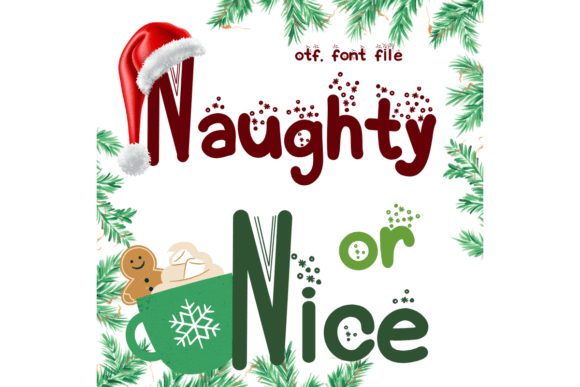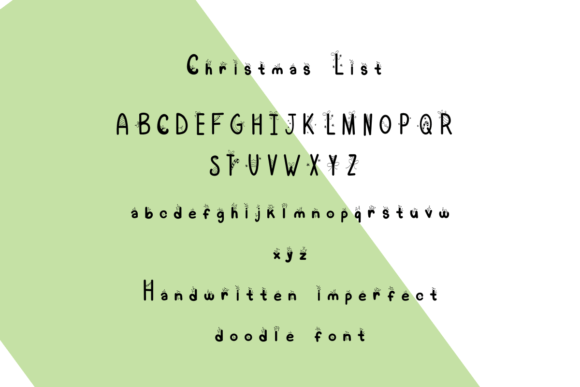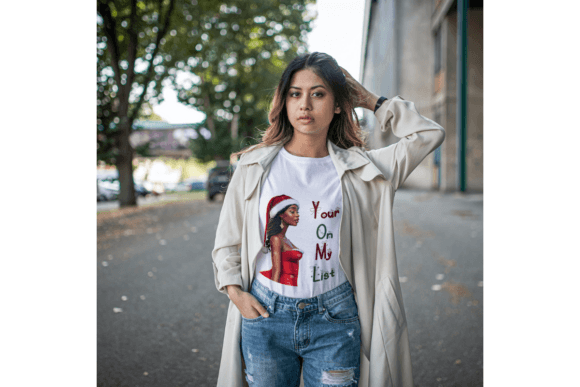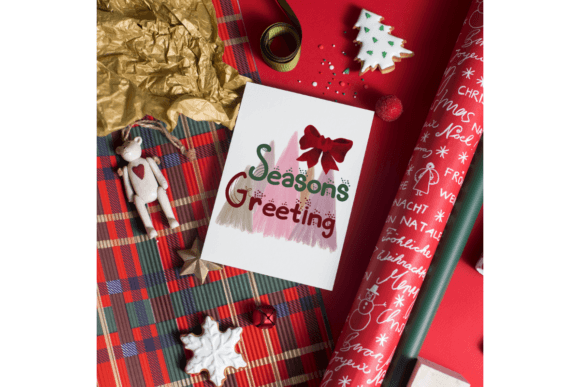
Christmas List Font: A Festive and Whimsical Typeface for Holiday Designs
Are you looking for a unique and festive font to add a touch of holiday cheer to your designs and projects? Look no further than the Christmas List Font, a charming and whimsical typeface adorned with tiny Christmas decorations wrapped around each letter. This delightful font is perfect for designers and crafters who want to create holiday-themed projects that stand out from the crowd.
What is Christmas List Font?
Christmas List Font is a digital typeface designed to evoke the magic and wonder of the holiday season. Each letter is carefully crafted with intricate Christmas decorations, such as holly leaves, candy canes, and snowflakes, that wrap around the characters to create a festive and playful look. The font is perfect for use in a variety of holiday-themed projects, from Christmas cards and invitations to festive posters and social media graphics.
Key Features of Christmas List Font
• Festive and Whimsical Design: The Christmas List Font features a unique and playful design that’s sure to add a touch of holiday cheer to your projects.
• Intricate Christmas Decorations: Each letter is adorned with charming tiny Christmas decorations, such as holly leaves, candy canes, and snowflakes.
• Perfect for Holiday-themed Projects: The font is ideal for use in Christmas cards, invitations, posters, social media graphics, and other holiday-themed projects.
• Christmas Cards and Invitations: Use the Christmas List Font to create festive and personalized Christmas cards and invitations.
• Festive Posters and Flyers: Create eye-catching posters and flyers for holiday events and promotions using the Christmas List Font.
• Social Media Graphics: Use the Christmas List Font to create festive and engaging social media graphics, such as holiday-themed Facebook posts and Instagram stories.
• Crafting and Scrapbooking: The Christmas List Font is also perfect for use in crafting and scrapbooking projects, such as holiday-themed journal pages and gift tags.
• Experiment with Different Colors: Try using the Christmas List Font in different colors to create a unique and eye-catching look.
• Combine with Other Fonts: Combine the Christmas List Font with other fonts to create a unique and festive look.
• Use in Combination with Holiday-themed Graphics: Use the Christmas List Font in combination with holiday-themed graphics, such as snowflakes and holly leaves, to create a festive and cohesive look.
The Christmas List Font is a festive and whimsical typeface that’s perfect for adding a touch of holiday cheer to your designs and projects. With its intricate Christmas decorations and playful design, this font is sure to stand out from the crowd. Whether you’re a designer or crafter, the Christmas List Font is a great way to add some holiday magic to your work. So why wait? Download the Christmas List Font today and start creating your own festive and fun holiday designs!